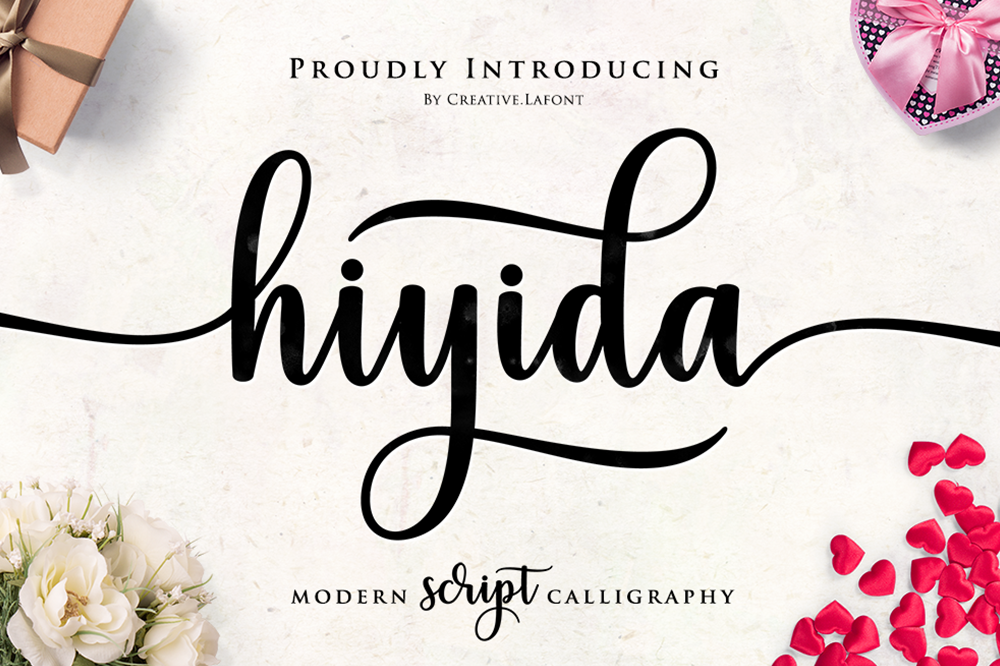
Hiyida Script
Introducing Hiyida Script!
Hiyida Script is modern script font, every single letters has been carefully crafted to make your text looks beautiful. With modern script style this font will perfect for many different project, example: weddings, invitations, greeting cards, posters, name card, quotes, blog header, branding, logo, fashion, apparel, letter, stationery, etc.
Hiyida Script allows you to create custom dynamic text. you can access by turning on; Stylistic Alternates, Stylistic Set, Initial Forms, Terminal Forms as well as ligatures in Photoshop, Adobe Illustrator, Adobe InDesign or through a panel of glyphs such as Adobe Illustrator, Photoshop CC, Let's swirl from the reguler character into character alternative to get the text with the layout of your dreams.
Hiyida Script features 801 glyphs and has given “Private Use Areas” PUA Encoded (specially coded fonts), with tons of alternate characters. The pack can be accessed in full by any crafter or designer, without the requirement for extra design software, Compatible With Silhouette Studio & Cricut Design Space.